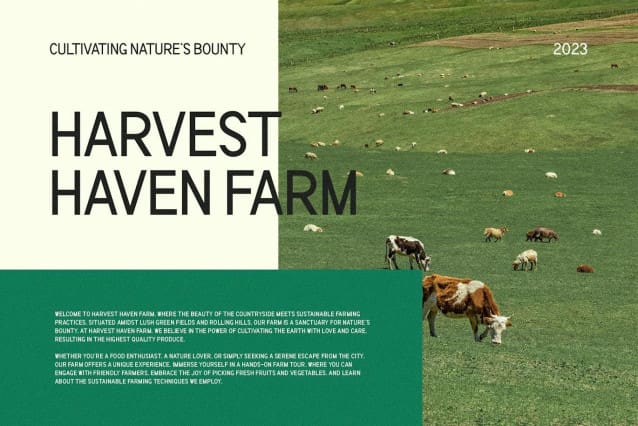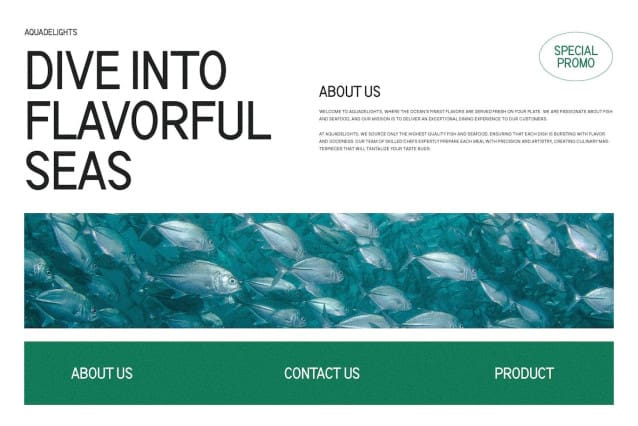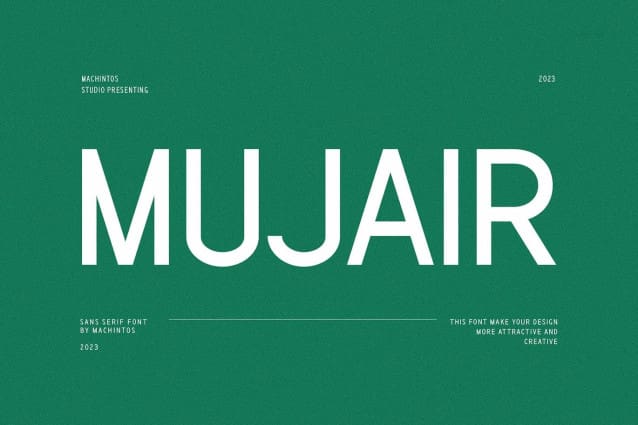
Mujair Font
Mujair Font, a modern sans serif font with an elegant style, perfect for brands, logos, invitations, magazines, product packaging, and more.